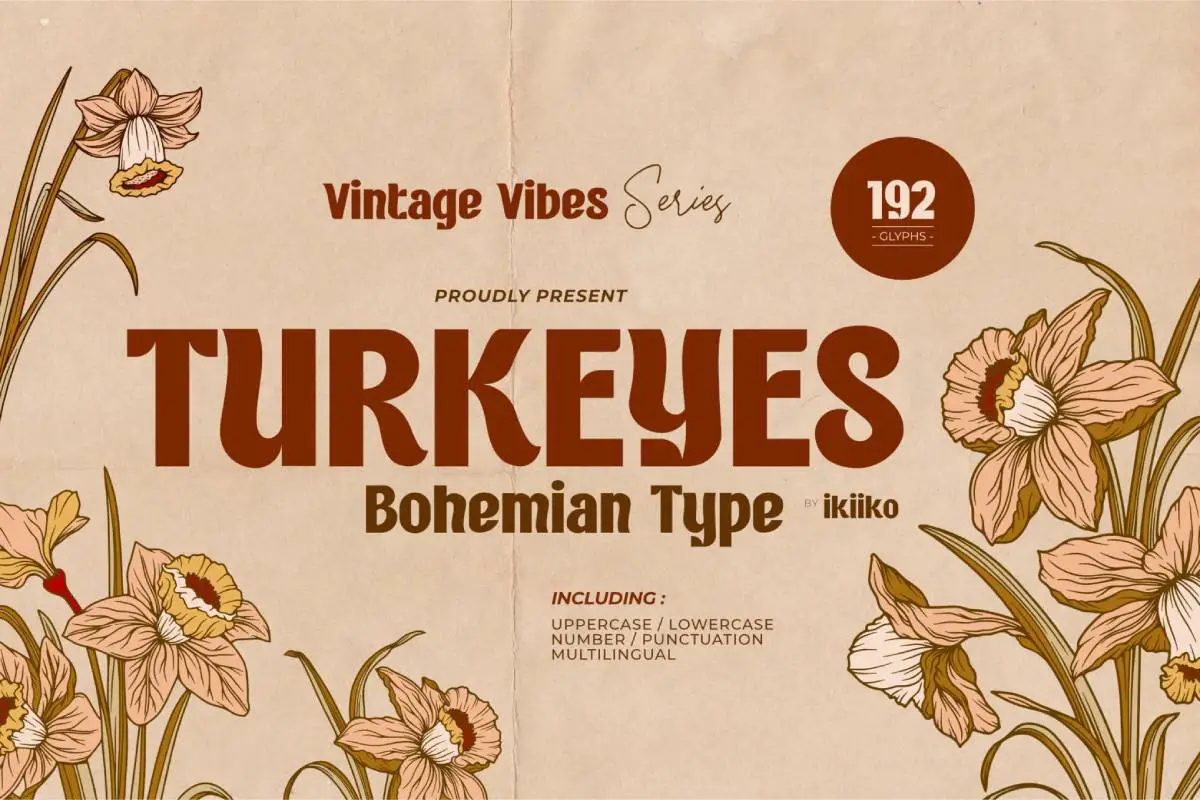
Explore the Best Turkish Fonts that perfectly fit the cultural spirit of the country, where age-old traditions have been redefined into typographic forms that are true works of art.
This post highlights some great Turkish fonts which will be perfect for your design and are certain to kick start your creative juices. The collection provides dramatic and intricate Ottoman calligraphy along with modern Turkish efficient design typestyles and is sure to suit any design style you may need.
Turkish fonts are more than just a simple font. It is an artistic tradition characterized by decorative patterns, geometric precision and cultural themes that does not leave anybody cold. No matter what sort of work you seek to incorporate them into, these fonts will add an air of history and sophistication.
Do use these fonts to create beautiful projects that are unique to you. Order your work in a way that displays captivating design elements that Turkish fonts can provide, and add texture and feel that capture the desired audience. It will allow these fonts to facilitate mood and express feelings that resonate with their viewers.
Where Can You Use Turkish Fonts?
Turkish fonts are easily adjustable and can complement various creative works. Having their distinct design structure as a result of the richness and heritage of Turkey s art, the fonts are appropriate for different levels and areas of application. Turkish fonts can be used to:
1.Brand Building And Logo Creation: For companies wishing to bring a more cultural aesthetic into their brand, Turkish texts are quite ideal. If youโre creating a logo for a Turkish restaurant, travel agency or an artisans shop โ these fonts will provide authenticity and style to the projects.
2.Design of packagings: Wishing to produce anything from traditional Turkish confectionery to contemporary products, packaging that has Turkish fonts will always maintain a balance between style and cultural significance. The fonts offer an added depth of narrative to the product linking it to the Turkish culture.
3.Design of invitation cards and other stationery products: With regards to events like Turkish weddings, cultural festivals or corporate parties, Turkish fonts add an ornate touch to such places including invitation cards, menus or any stationery products and even cutleries.
4.Designing Websites and Applications: These fonts create an atmosphere when designing websites, blogs, and apps related to Turkish culture, travel, or cuisine, which is very important for UI/UX. Turkish fonts contribute to the visual story without compromising on balanced structure.
Social Media Graphics The Turkish fonts can enhance the beauty and stimulate the originality of your posts promoting something, social media visuals with inspirational quotes, or anything related to travel-related content making them more worthy to be seen above the digital noise. Print Media In posters, brochures and magazines, Turkish typefaces also perform remarkably well, especially for cultural events, exhibitions or travel guides. They are eye-catching, and their artistic sense sets the design in an extra layer. Art and Craft Projects Distinct designs for Turkish wall art to personalized baby gifts enabling thes to a more cultural edge to their designs are also great ideas that can be made using Turkish fonts. Turkish fonts are the missing element in any project where beauty, originality, or the culture itself is the main point. Digital or print, these fonts enrich the graphics with a serious emotional background for and feeling of the offering.
9+ Best Turkish Fonts to Elevate Your Designs
1. King Malik โ Turkish Font
Welcome to the permanent exhibition of King Malik, a display decorative typeface devoted to the classic charms of Turkish typeface design. Because of the mix of bold and elegance, King Malik would not only be appropriate for branding but also Turkish projects and many more.
Whether you are designing a logo, producing materials for an event or digitally incorporating โTurkish Elementsโ into your designs, the font will help you make a statement and sophisticated touch.
Uppercase Letters
Lowercase Letters
Symbols & Punctuation
Numbers
Ligatures
Alternates
Harness the power of King Malik and allow its distinct tone to bring uniqueness in your designs with an absolute Turkish touch.
2. Drakune Font
With Drakune, beauty and grace will never become outdated: it is a refined Beauty Transitional Serif font. Its serifs and detail are very well developed, which adds quite some class to any creative undertaking. The large number of alternates and ligatures enhance Drakuneโs wide-ranging capabilities, letting you create original stylish graphic designs. Drakune is the appropriate answer for the elegance, which is widely appreciated in the contemporary world. Design-wise, Drakune is simply supreme among words in the context of Beauty Transitional serif fonts.
3. Turkeyes โ Bohemian Font
Turkeyes is a display type typeface that has its origins dating back but has been modified to suit the present. The font draws its inspiration from the bohemian era and is perfect for those wanting to bring back the style of the 60s and 70s today. This fontโs unique forms are a great addition to brand logos, posters, food, and beverage designs as well as any artistic work that has something to do with retro.
Digits
Ligatures
Alternates
Multilingual support
9. Khalif Font
Khalif is an original font which is created from Celtic and uncial motifs characterized with a distinctive vintage appearance. It is suitable for illustrated designs or as a display font, Khalif only enhances the character of the design.
Khalif should fit perfectly into your work with Persian or Turkish motifs and any other national ornaments, as well as original style. It is equally effective for films, books, or magazines in titles, headlines, logotypes and badge designs.